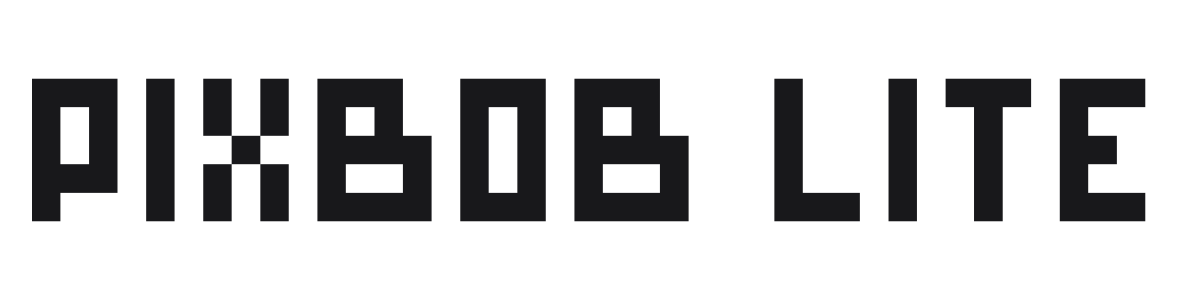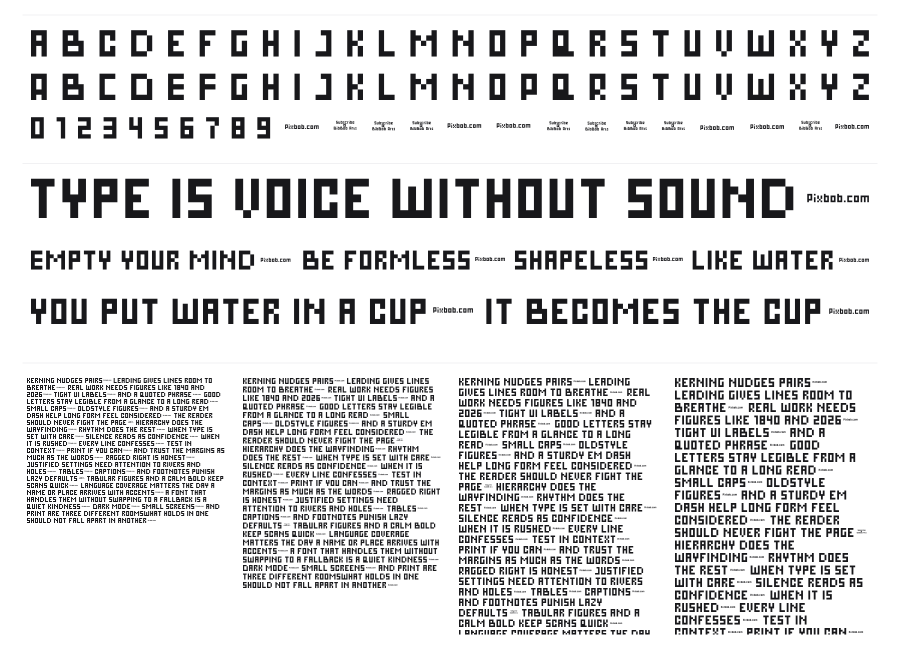
Pixbob Lite
Pixbob Lite is a bold bitmap font built on a strict pixel grid, designed specifically for pixel art environments like Aseprite and Pixquare. Every character snaps cleanly to the grid, making it unusually crisp at small sizes when set in multiples of 10px. The squared, module-based construction gives it a confident retro-tech presence that works well for game UI, titles, and pixel project descriptions.